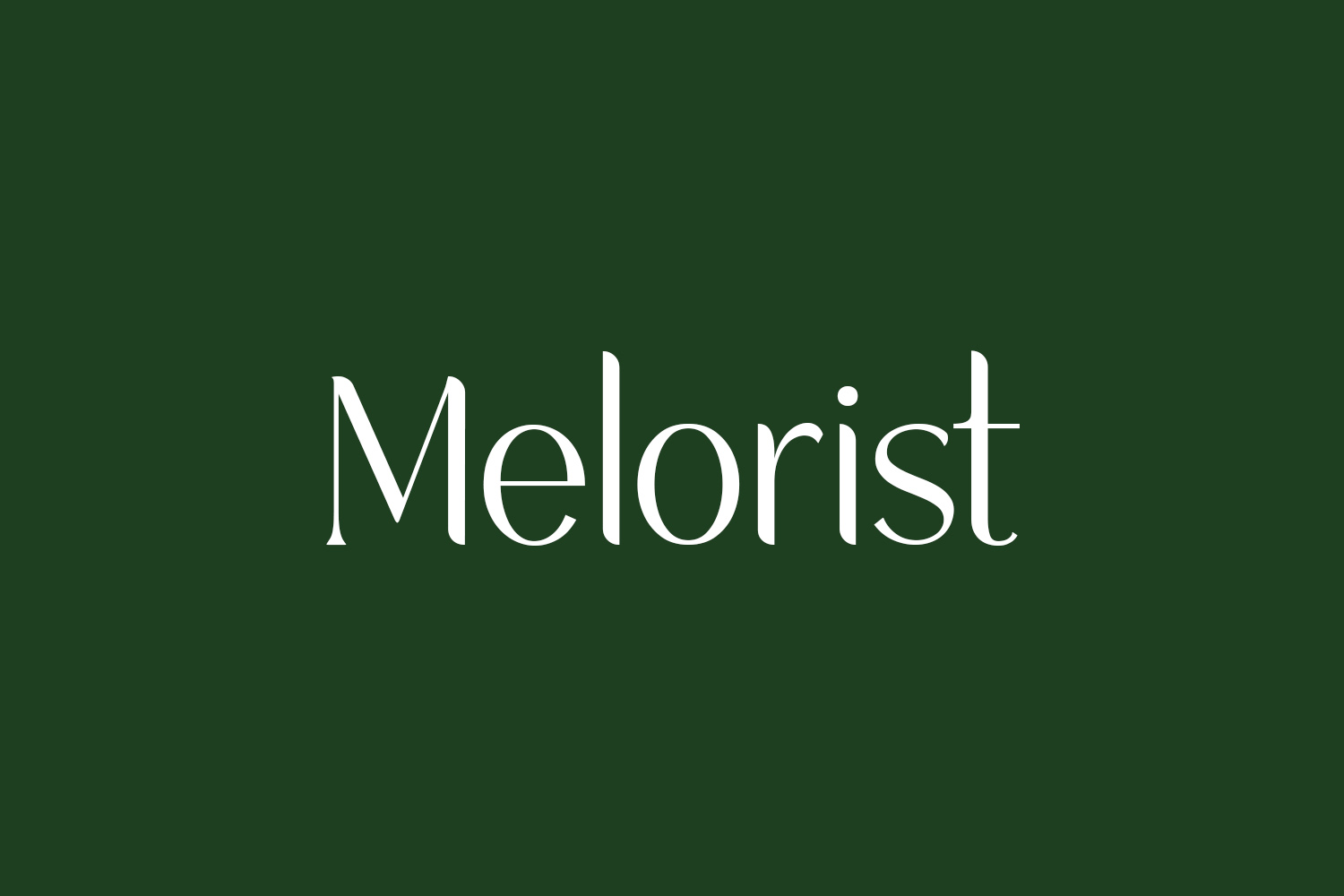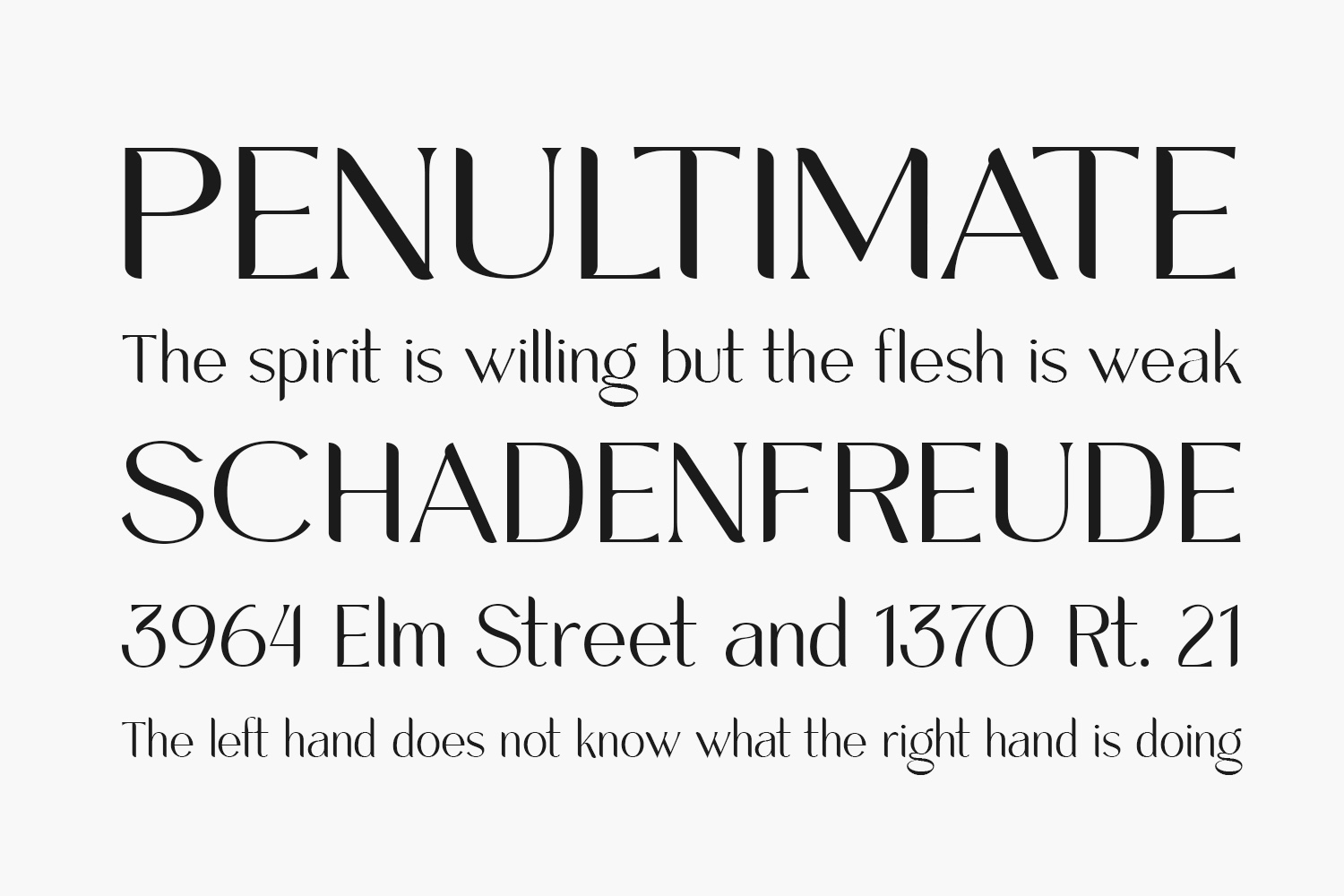
Melorist Free Font is a sweet and friendly display font. Its natural and unique style makes it incredibly fitting for a large pool of designs. The only limit is your imagination. Melorist Free Font was designed by Letterhend Studio and is free for personal use only. Please purchase the full version for commercial use.